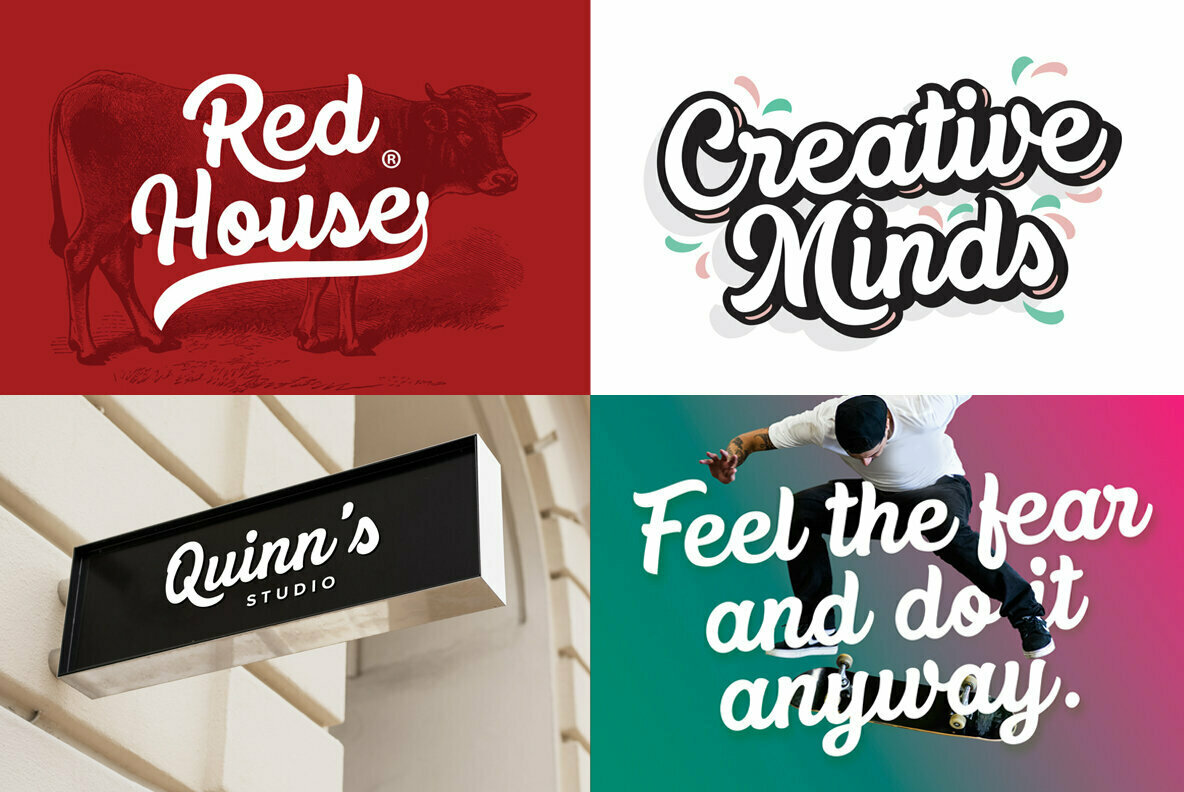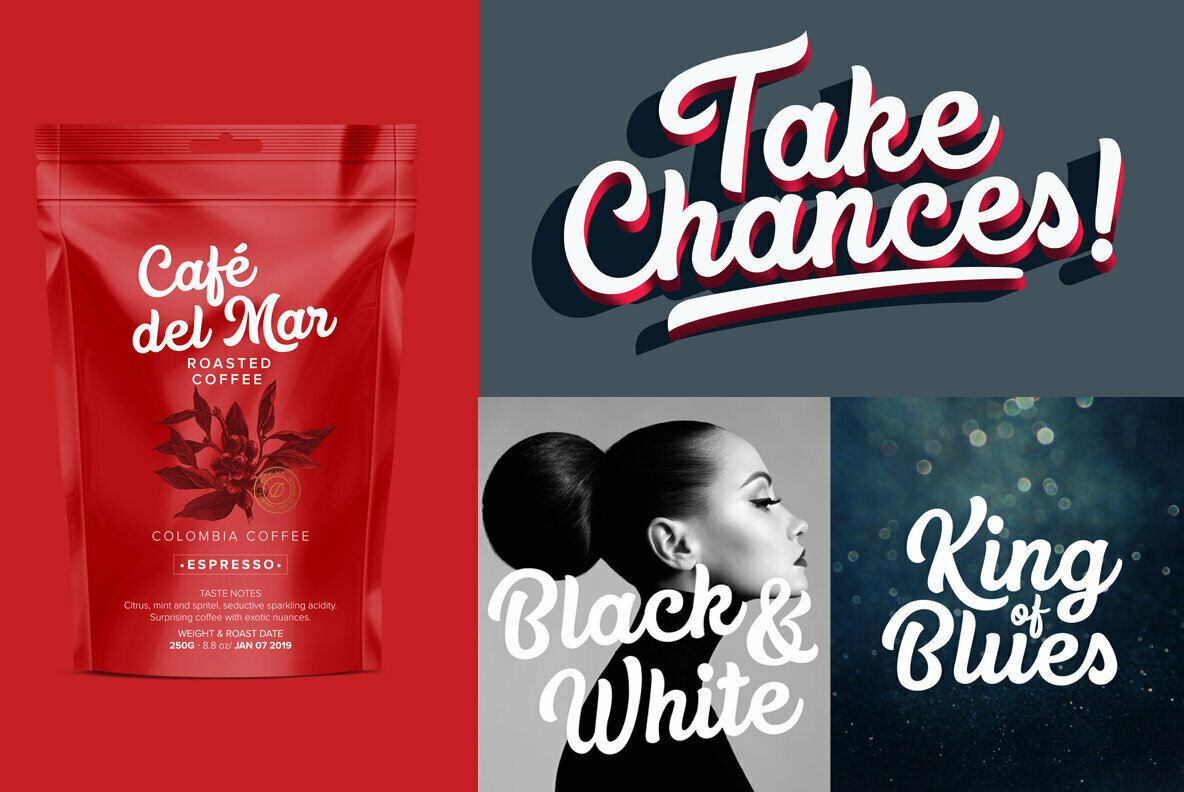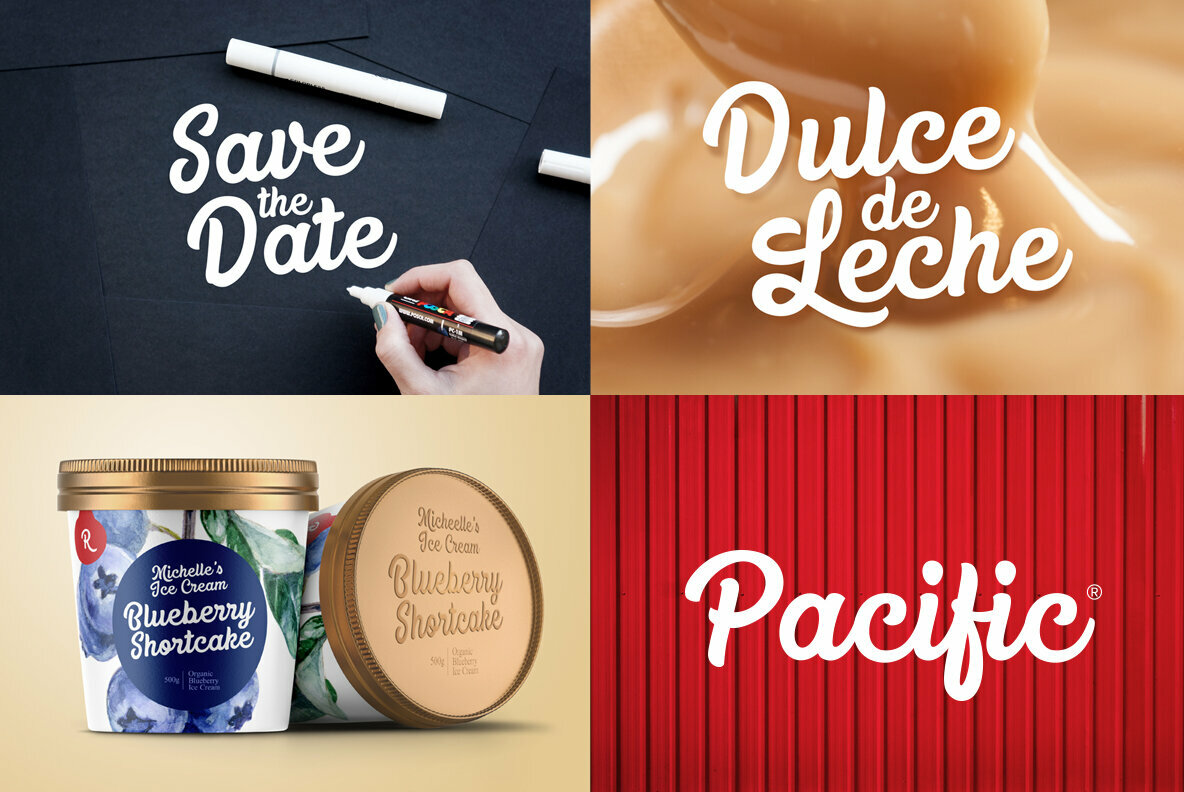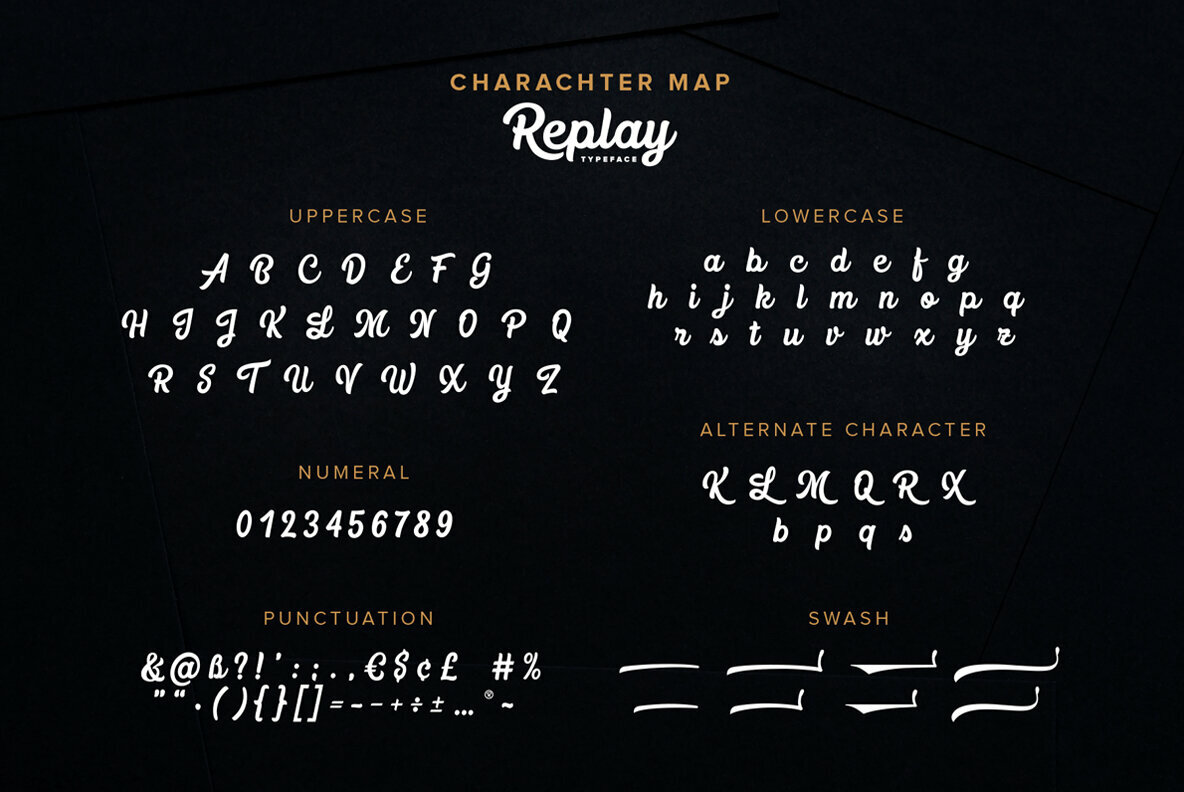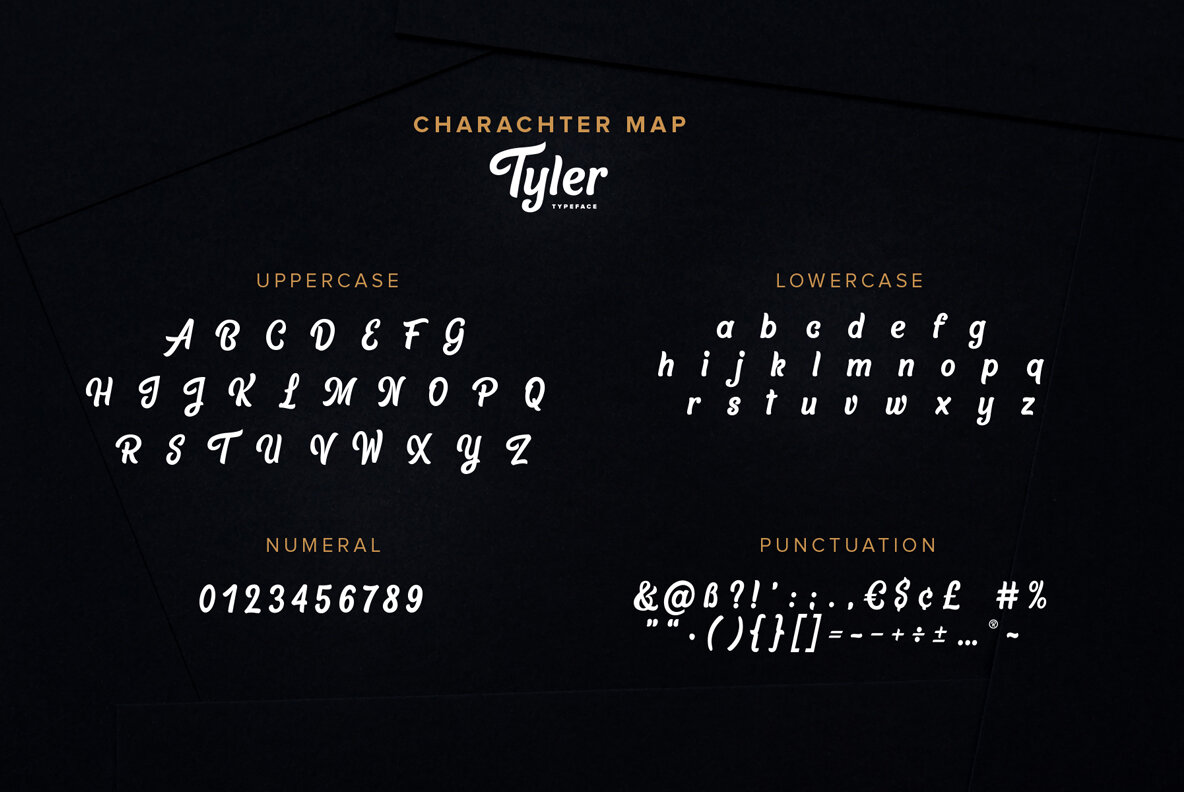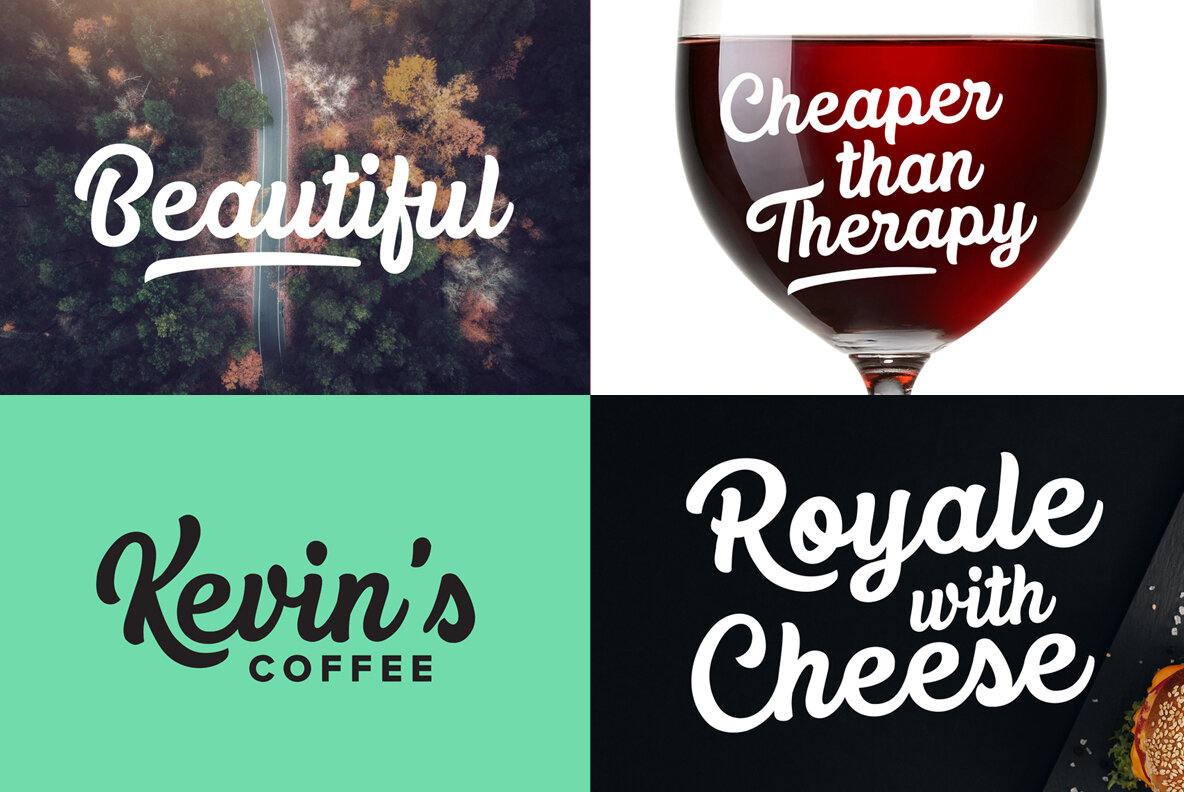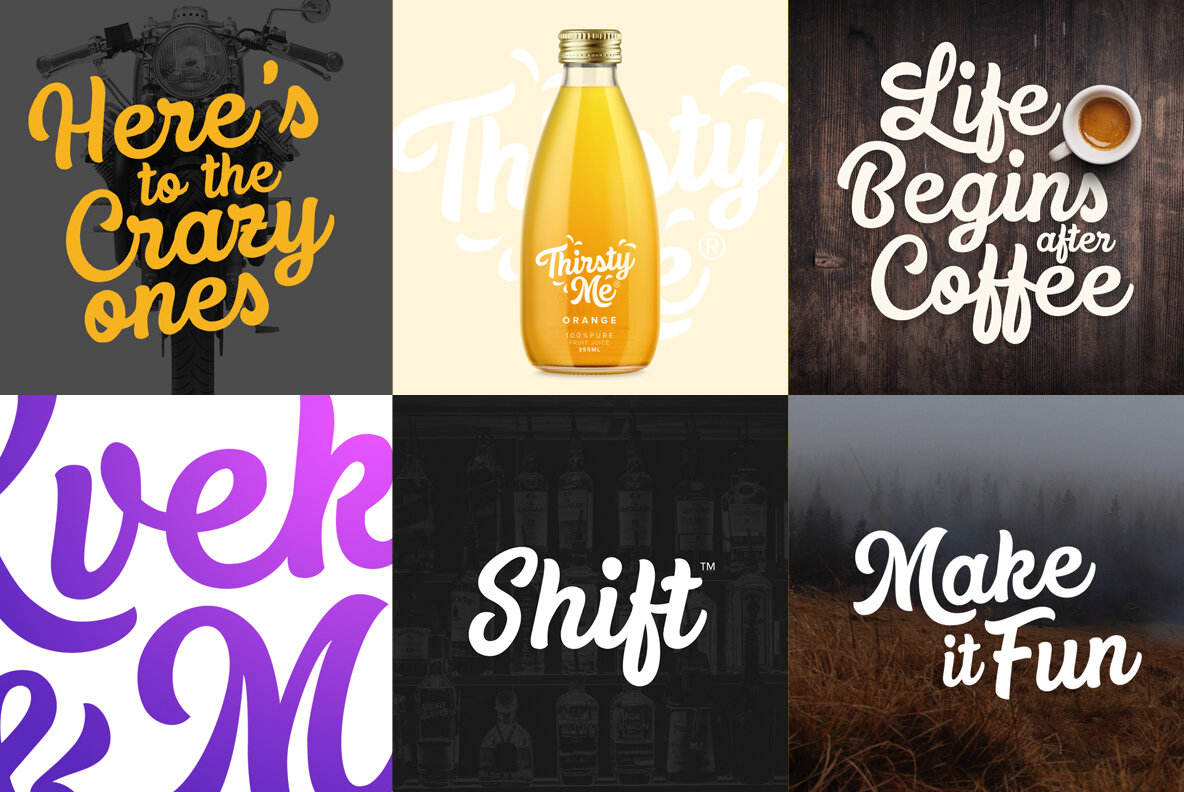
Replay & Tyler Font
This pair of typefaces exudes a unique charm that elevates both logos and stylish text against any backdrop. Crafted meticulously, the hand-drawn nature of Replay & Tyler offers the kind of personal touch that graphic designers cherish in branding projects. Features:Replay & Tyler: A Charming Hand-Drawn Font Duo
Replay & Tyler is perfect for designers seeking a font that stands out and adapts seamlessly to various creative contexts.